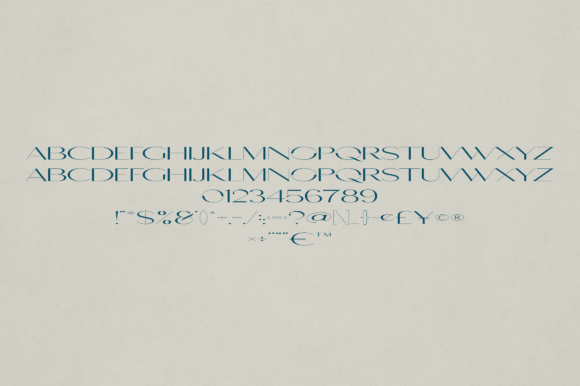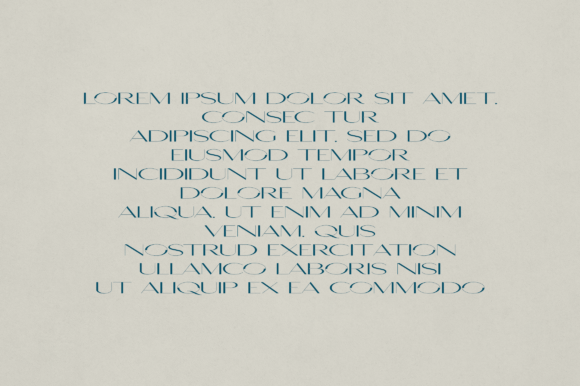
Amlug Font: Elevate Your Design with Elegance and Versatility
In the world of typography, a font can make or break a design. It’s the foundation upon which your creative vision is built, and choosing the right one can be a daunting task. However, if you’re looking for a font that embodies elegance, versatility, and uniqueness, look no further than Amlug Font. This stunning font is designed to transform your typography into a masterpiece that will leave a lasting impression on your audience.
The Charm of Amlug Font
Amlug Font is an elegant and versatile font that is perfect for designers and crafters looking to add a touch of sophistication to their projects. Its unique design makes it an excellent choice for a wide range of applications, from logos and branding to headlines and plain text. Whether you’re working on a branding project, home-ware design, product packaging, or magazine header, Amlug Font is sure to enchant your typography and elevate your design to new heights.
One of the standout features of Amlug Font is its incredible versatility. Its elegant design makes it perfect for a variety of design projects, including:
- Branding Projects: Create a lasting impression with a unique and memorable logo that showcases your brand’s personality.
- Home-Ware Designs: Add a touch of elegance to your home-ware designs, from product packaging to labels and tags.
- Product Packaging: Make your product stand out on store shelves with eye-catching packaging that features Amlug Font.
- Magazine Headers: Create stunning magazine headers that grab attention and draw readers in.
- Text Overlays: Use Amlug Font as a stylish text overlay to add depth and interest to any background image.
Why Choose Amlug Font?
So, what sets Amlug Font apart from other fonts on the market? Here are just a few reasons why designers and crafters are falling in love with this incredible font:
- Elegant Design: Amlug Font boasts an elegant design that is sure to elevate your typography and add a touch of sophistication to your design.
- Versatility: This font is incredibly versatile, making it perfect for a wide range of design projects.
- Unique: Amlug Font is a unique and distinctive font that will help your design stand out from the crowd.
- Easy to Use: This font is easy to use and can be easily integrated into your design project.
Tips for Using Amlug Font
To get the most out of Amlug Font, here are a few tips to keep in mind:
- Experiment with Different Sizes: Amlug Font looks great in a variety of sizes, so don’t be afraid to experiment and find the perfect size for your design.
- Play with Color: This font looks stunning in a range of colors, so try experimenting with different colors to find the perfect one for your design.
- Use it as a Headline Font: Amlug Font is perfect for headlines, so try using it to create eye-catching titles and headings.
- Pair it with Other Fonts: This font pairs well with other fonts, so try experimenting with different font combinations to create a unique and interesting design.